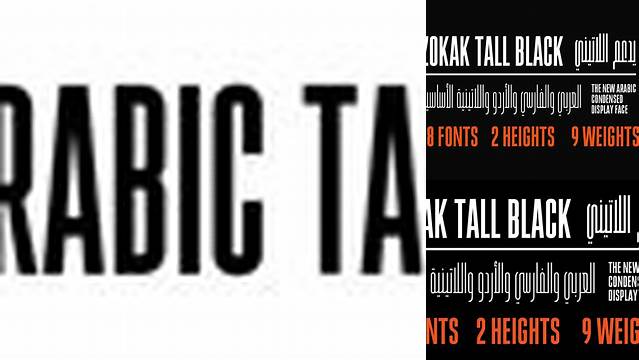
Hey guys! Are you on the hunt for a sleek, modern font to elevate your designs? Look no further! We're diving deep into the world of Zokak Tall Font, a typeface that's been making waves in the design community. This comprehensive guide covers everything from where to snag a free download to how to creatively implement it in your projects. So, buckle up and let's get started!
1. What is Zokak Tall Font?
Zokak Tall Font is a contemporary typeface characterized by its elongated, narrow letterforms. Its clean lines and elegant structure make it a versatile choice for a wide array of design applications. From branding and advertising to editorial design and web typography, Zokak Tall Font can add a touch of sophistication and modernity. What sets it apart is its distinct visual appeal, offering a fresh alternative to more conventional fonts. The font's height-to-width ratio creates a unique vertical emphasis, drawing the eye and making it perfect for headlines, titles, and other display purposes. Zokak Tall Font's design balances functionality with aesthetics, ensuring readability even at smaller sizes. This makes it suitable not only for prominent display elements but also for body text where a touch of elegance is desired. Furthermore, the font often includes a variety of weights and styles, such as regular, bold, italic, and condensed, providing designers with a flexible toolkit to achieve different visual effects and maintain consistency across their projects. Overall, Zokak Tall Font is a stylish and adaptable typeface that can enhance the visual impact of any design project, offering a unique blend of modernity and readability.
9. Designing Logos with Zokak Tall Font
Zokak Tall Font can be an excellent choice for designing logos, especially if you're aiming for a modern, minimalist, and sophisticated look. Its tall and narrow letterforms can create a unique and memorable visual identity for your brand. When designing a logo with Zokak Tall Font, start by considering the overall personality and values of your brand. Is your brand serious and professional, or more playful and creative? The font's style should align with your brand's identity. Experiment with different weights and styles of the font to see what works best for your logo. A bolder weight can convey strength and confidence, while a lighter weight can create a more elegant and refined feel. Pay attention to the kerning and spacing between the letters. Adjusting the kerning can improve the readability and visual appeal of your logo. Consider using Zokak Tall Font in combination with other fonts to create a more dynamic and balanced design. A contrasting font can add visual interest and help to highlight key elements of your logo. Think about the colors you'll use in your logo. The font's color should complement the overall color scheme of your brand. Keep your logo simple and memorable. A logo should be easily recognizable and scalable, so avoid using too many details or complex elements. Test your logo in different sizes and on different backgrounds to make sure it looks good in all contexts. Get feedback from others on your logo design. Ask for their opinions on the font choice, the overall design, and whether it effectively communicates your brand's message. With careful consideration and experimentation, you can create a stunning logo with Zokak Tall Font that accurately represents your brand and helps you stand out from the competition.
10. Creating Website Headlines with Zokak Tall Font
Using Zokak Tall Font for website headlines can instantly give your site a modern and stylish look. Its unique vertical emphasis draws the eye and makes your headlines stand out, which is crucial for capturing visitors' attention. When using Zokak Tall Font for headlines, make sure to choose a font size that's both legible and visually impactful. The size should be large enough to be easily read, but not so large that it overwhelms the rest of the page. Pay attention to the line height of your headlines. A comfortable line height will improve readability and prevent the lines of text from feeling cramped. Use headings tags (